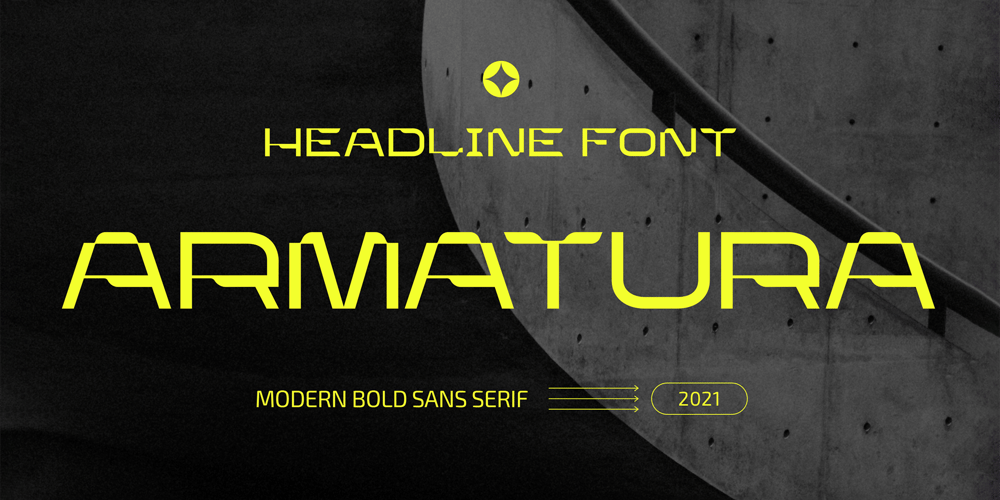
Armatura
Armatura font
Armatura Font Family was designed by Igor Nechytailenko and published by Nechit. Armatura contains 1 styles and family package options. Armatura — a bold, sporty font with a modern and futuristic alphabet design. Elevate your design projects to new heights with Armatura’s cutting-edge typography, perfect for branding, headings, technology, digital media, movie titles, invitations, signatures, logos, labels, and much more! This modernist capital font is tailor-made for eye-catching headlines and captivating titles.Armatura boasts an extensive character set, including Latin, Cyrillic, and Arabic numerals, making it versatile and adaptable for diverse linguistic and cultural contexts.Key Features: Sporting Boldness: Armatura exudes energy and daring style, capturing attention and infusing dynamic flair into your designs. Versatility at its Best: This font seamlessly fits various projects, from large-scale advertising banners to petite cards. Embrace Technological Edge: Armatura effortlessly integrates with modern technology, ideal for digital and interactive media ventures. Multilingual Support: With Latin and Cyrillic alphabets, plus Arabic numerals, Armatura accommodates a multitude of languages and regions. Expressive Appeal: Its geometric forms and audacious details bring character and distinctiveness to every design element. Unleash the power of Armatura to make your projects stand out, commanding attention with a contemporary touch of uniqueness. This font is a must-have for ambitious and forward-thinking designers seeking to create something exceptional and truly captivating.